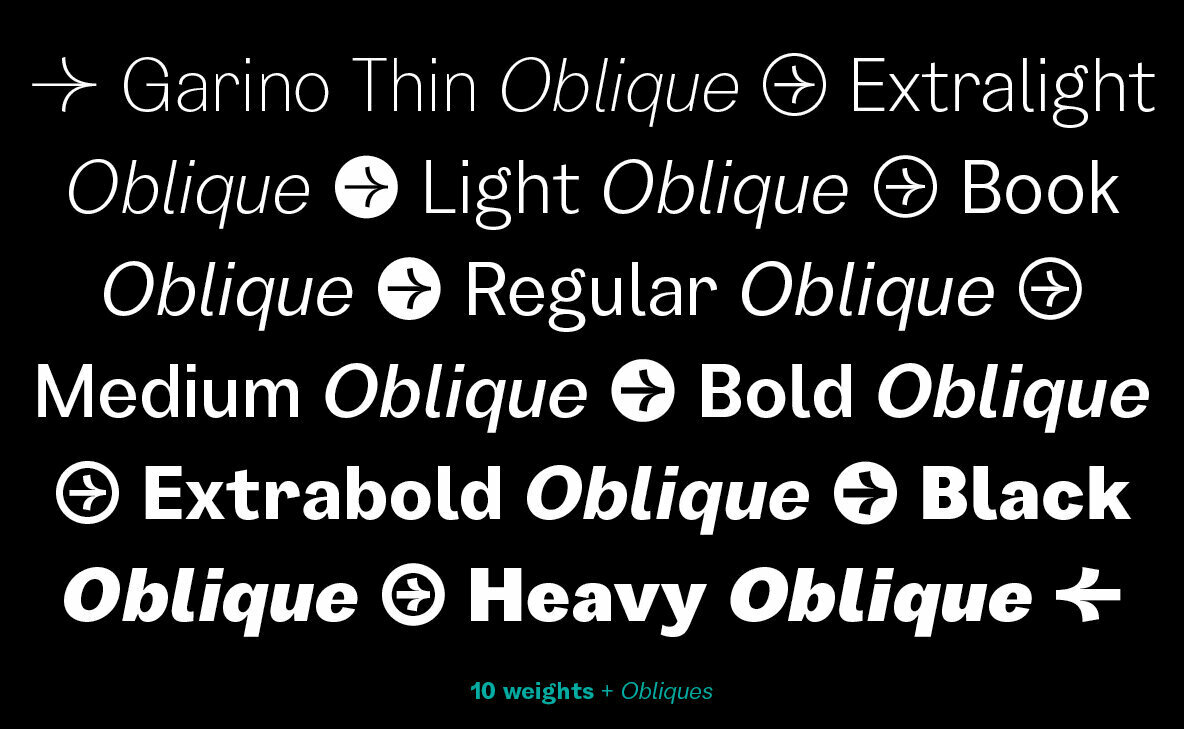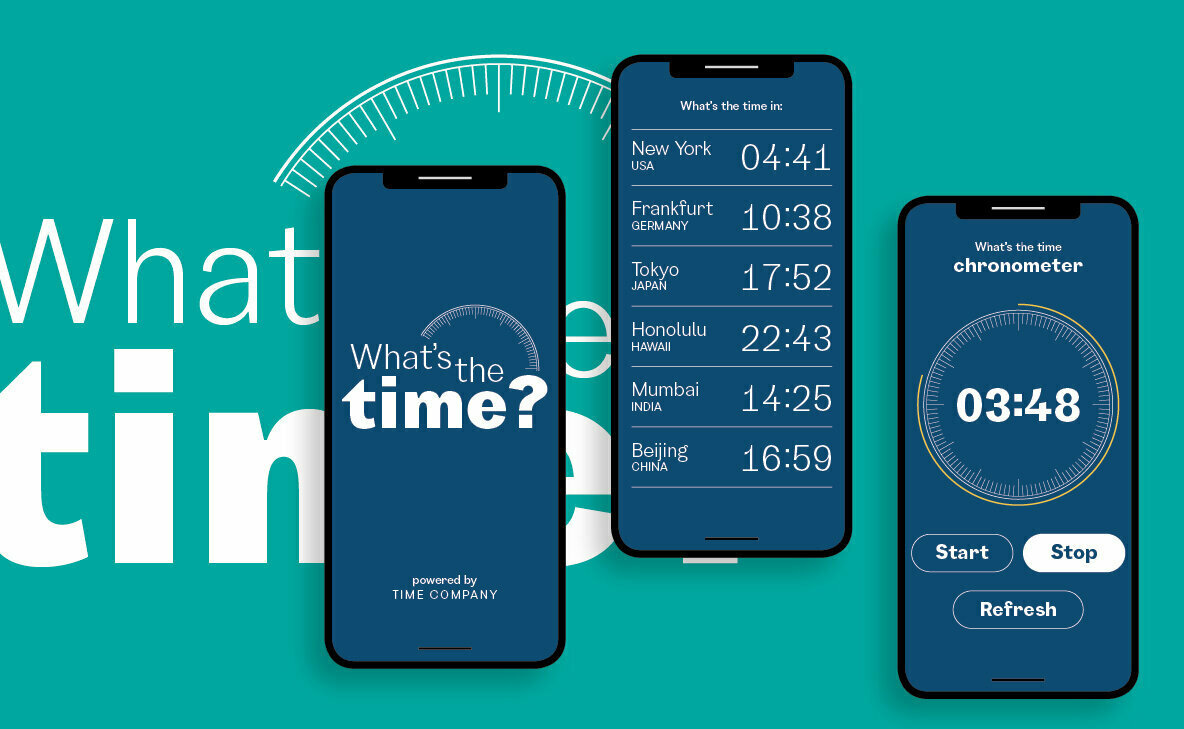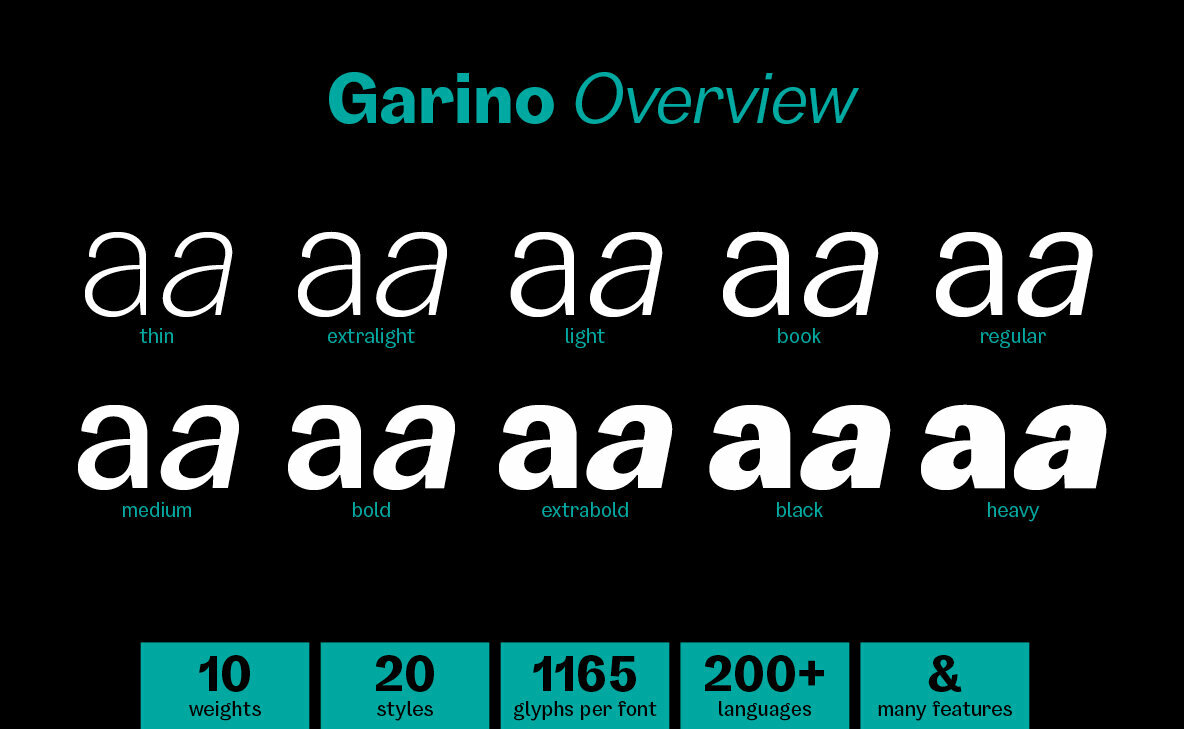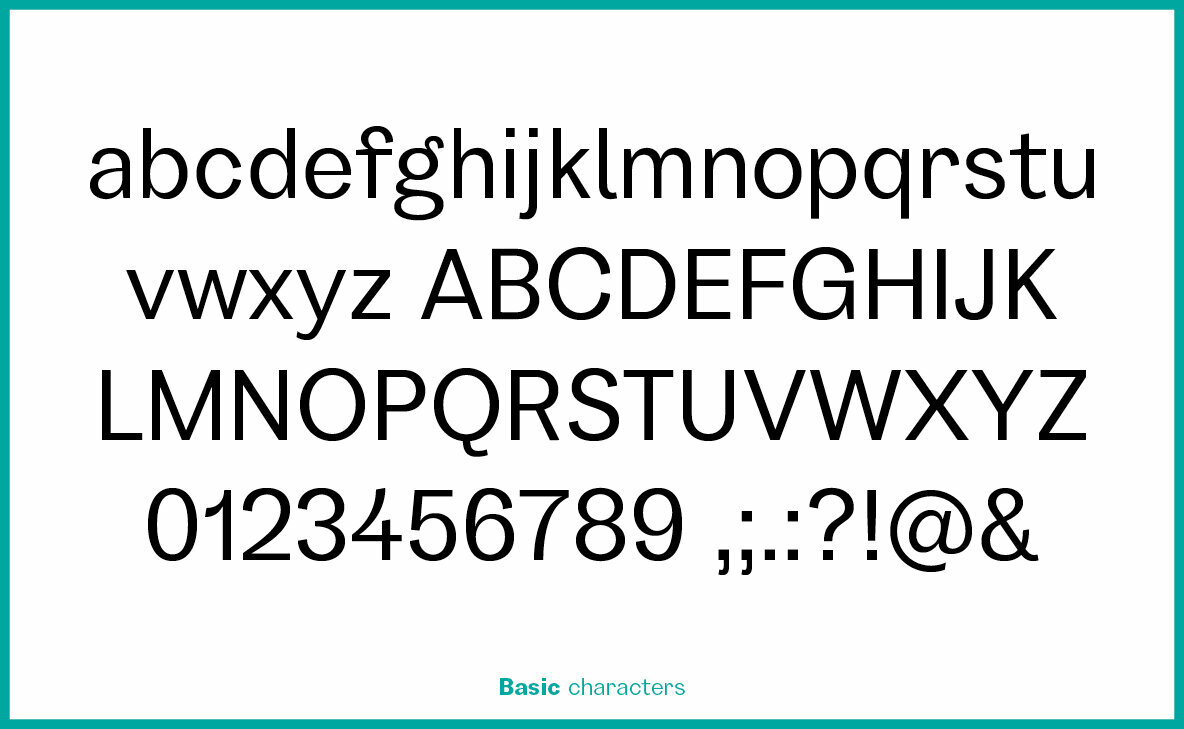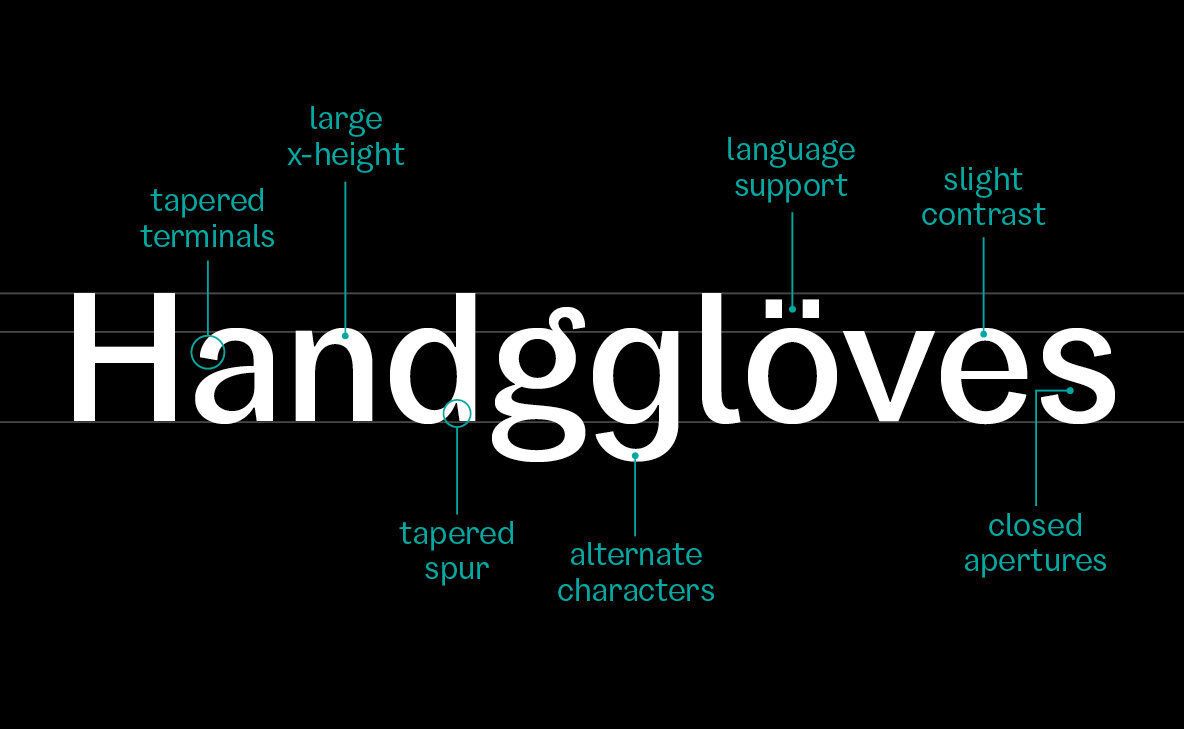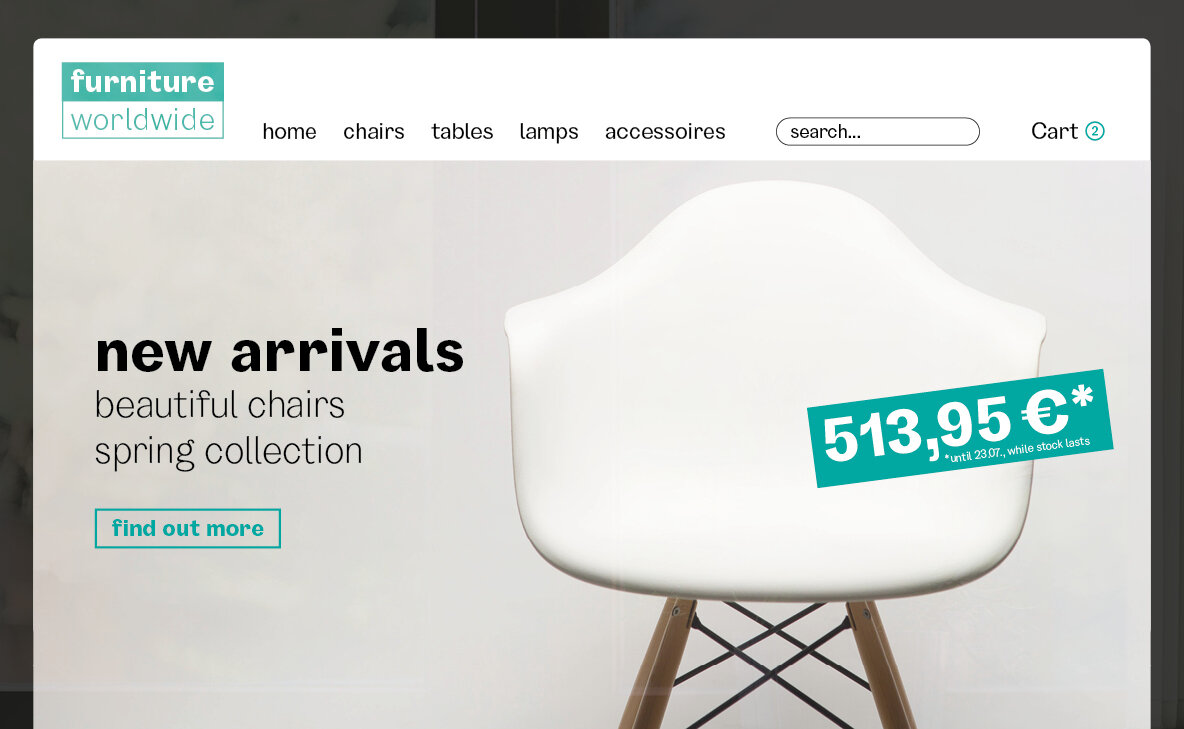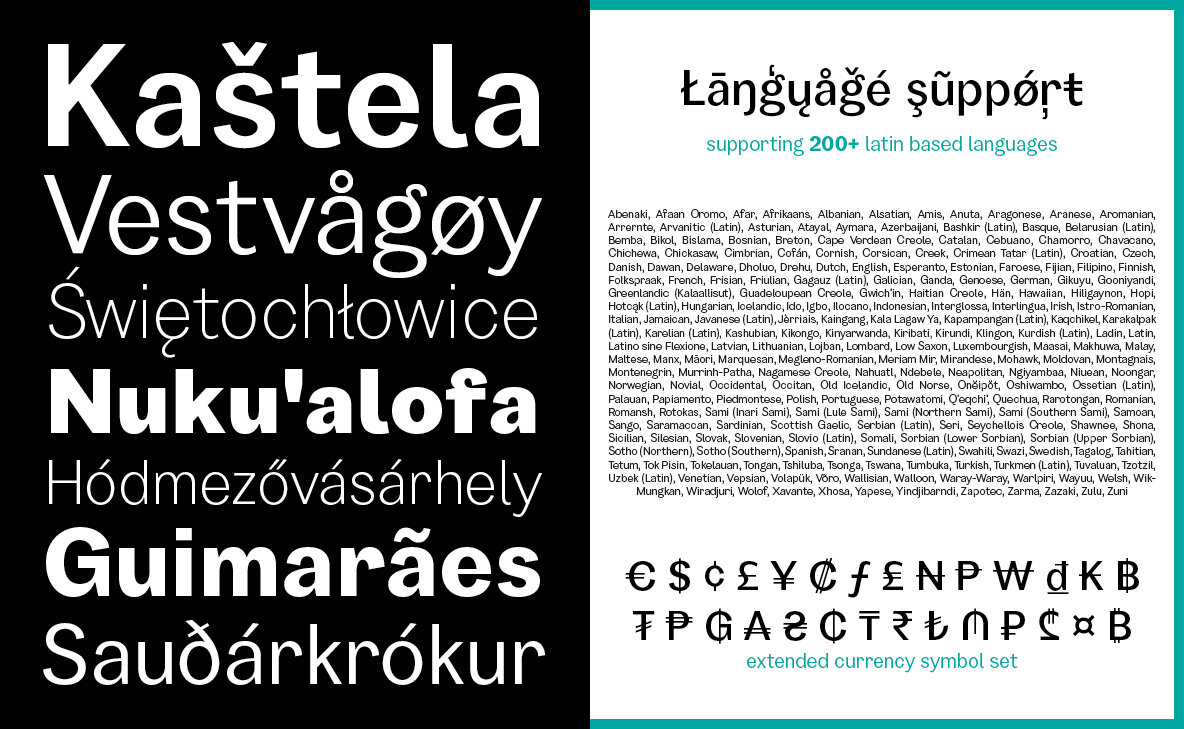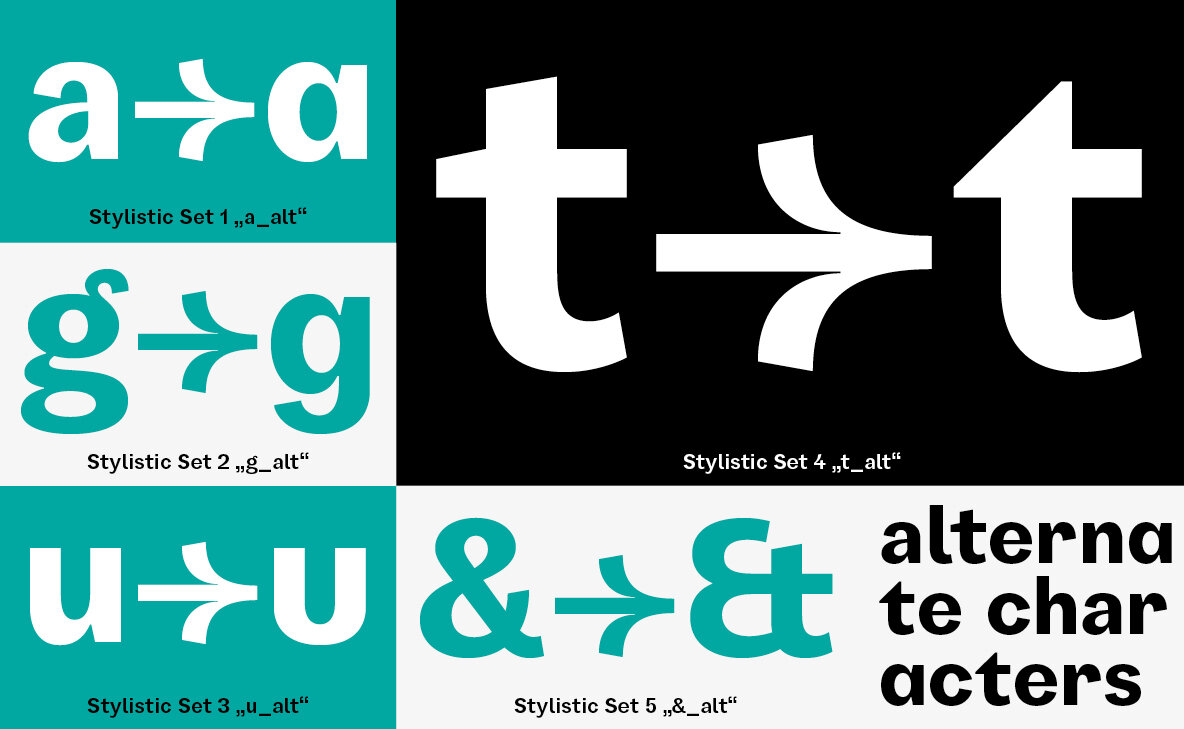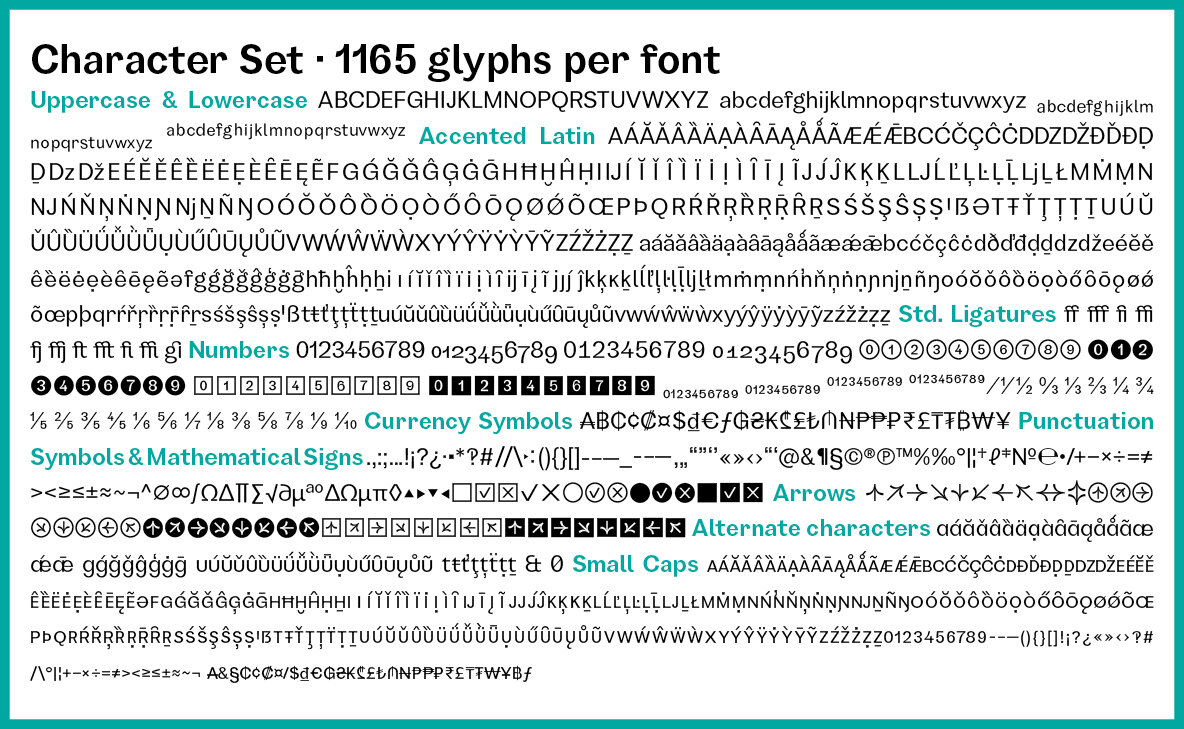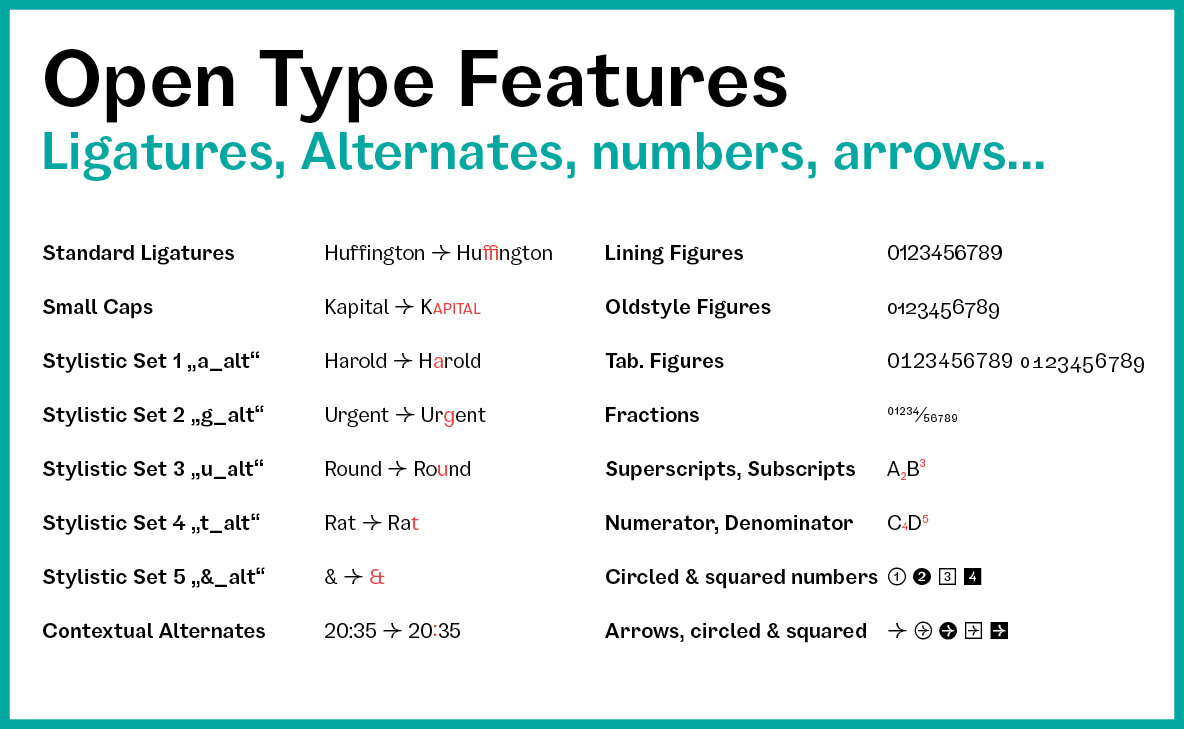
Garino Font
Garino is a modern sans-serif typeface. It gains its expressive character from a dynamic sweep in the curves and high-contrast transitions. The thinner and thicker weights are particularly suitable for strong headlines, while the middle weights can be used for typographic challenges and body text. As a result, it can be used in a reserved as well as an expressive way. Thanks to an extensive character collection, it becomes a real workhorse. A versatile allrounder that is up to all challenges – for Corporate Identity, Editorial, Branding, Orientation and Guidance systems and much more.
The Garino family has a total of 20 styles, from thin to heavy with matching italics. With over 1165 characters, it covers over 200 Latin-based languages. It has an extended set of currency symbols and a whole range of Open Type Features. There are alternative characters as stylistic sets, small caps, automatic fractions – just to name a few.
Arrows and numbers:
In particular, the extensive range of arrows and numbers should be highlighted, which are perfectly suited for use in orientation and guidance systems. Thanks to Open Type Features and an easy system, the various designs of arrows and numbers can also be simply "written" without first having to select them in a glyph palette.
Julien Fincker is a french Designer living near Stuttgart, Germany. He is working as an Art Director in an advertising agency. Besides his daily work, he also works on freelance projects for different clients or even just for fun. From his beginnings he was always interested in different genres like graphic de...